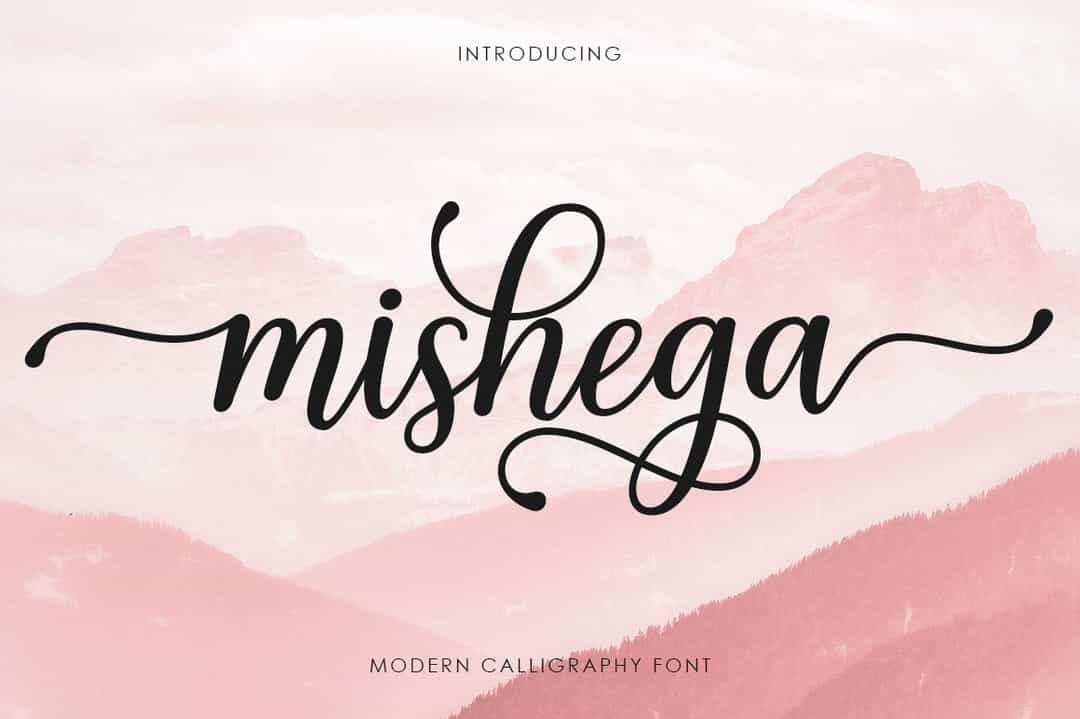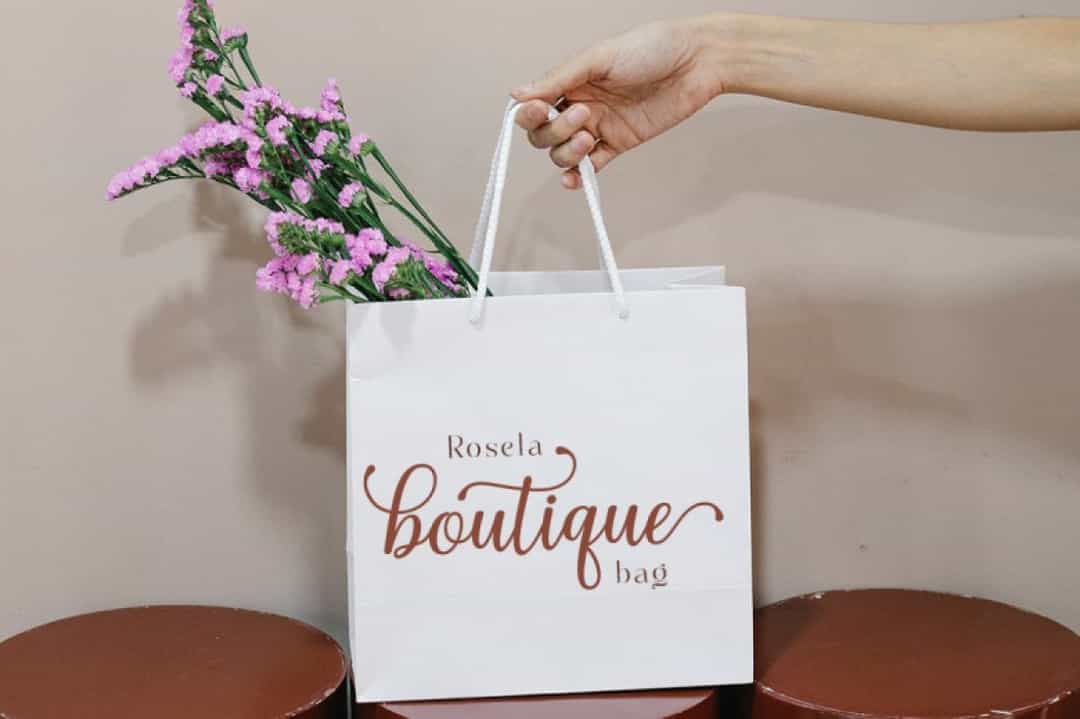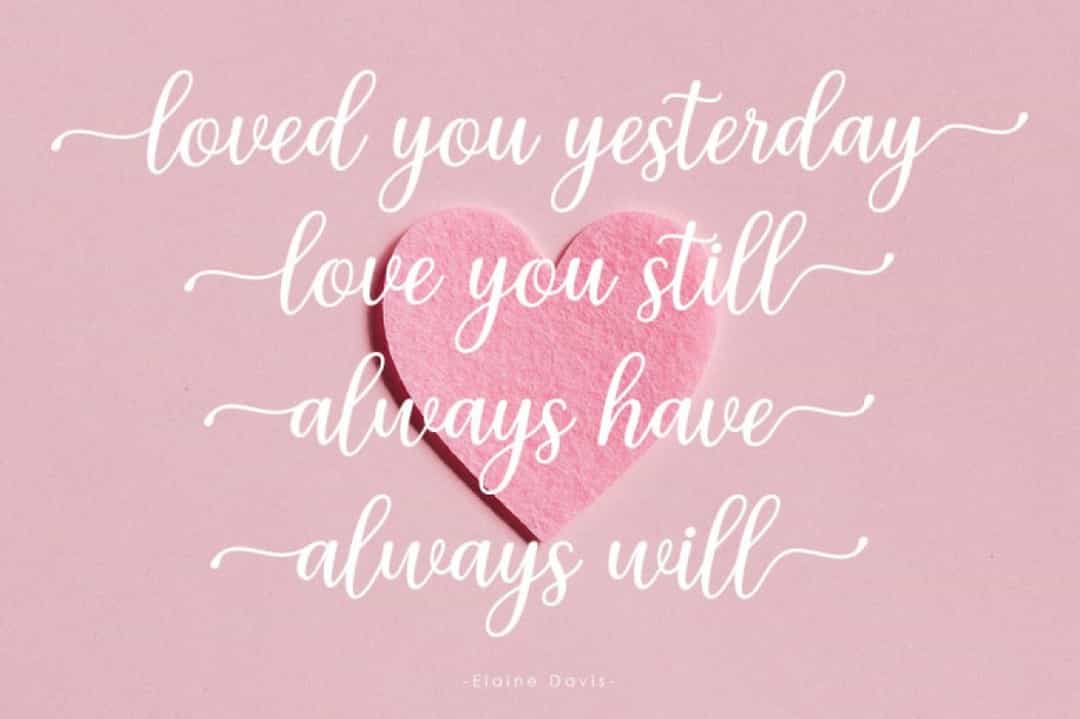
Mishega is a contemporary calligraphy script font with Regular letterforms that is easy to read and elegant with Swashes. This font can be used for various applications including logos packaging for products wedding invitations headlines branding signs labels signatures book posters covers quotes as well as many others.